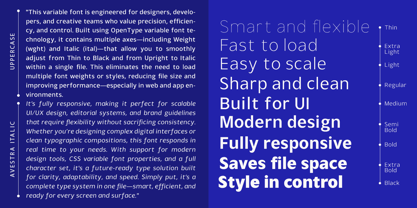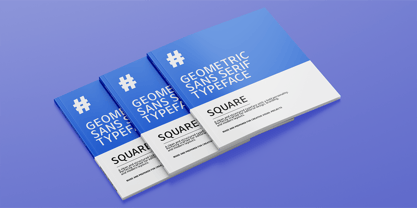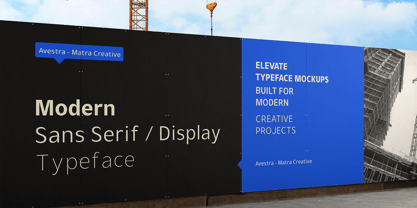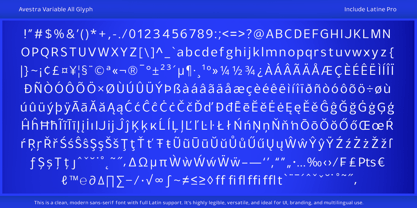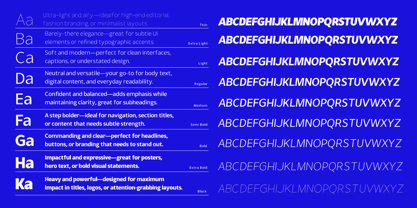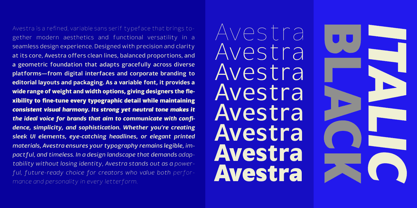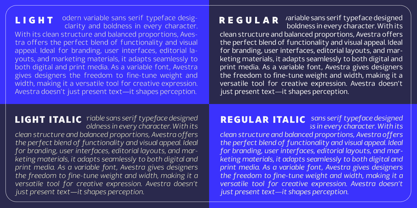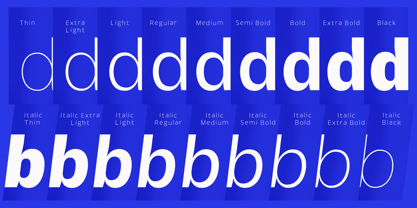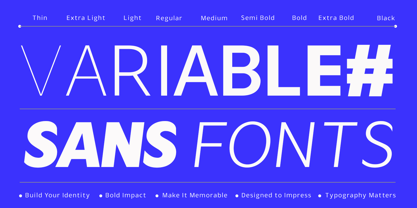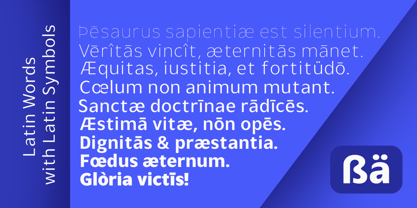
Avestra
von Matra Creative
Die Schriftfamilie Avestra wurde von May Adifarzan muis entworfen und von Matra Creative veröffentlicht. Avestra enthält 93 Stile und Familienpaketoptionen. Mehr über diese Familie
Avestra is a modern variable font crafted for designers, developers, and creatives who demand precision, flexibility, and full typographic control. Built on cutting-edge OpenType technology, Avestra smoothly transitions from Thin to Black, and Upright to Italic—all within a single, lightweight font file. Say goodbye to font bloat: Avestra delivers an entire typographic ecosystem without compromising speed or performance.
Perfect for:
• Responsive UI/UX design systems
• Editorial layouts and publishing platforms
• Scalable branding and identity design
• High-performance web and app interfaces
Avestra Highlights:
• Fast loading: lightweight and optimized for speed
• Flexible control: fine-tune weight and style in real time
• Responsive: adapts seamlessly across devices and resolutions
• Smart: built to work flawlessly with modern design tools and CSS font-variation settings
• Aesthetic: clean, modern, and functionally elegant
Available Axes:
• Weight: Thin → ExtraLight → Regular → Medium → SemiBold → Bold → ExtraBold → Black
• Style: Upright & Italic (Italic axis)